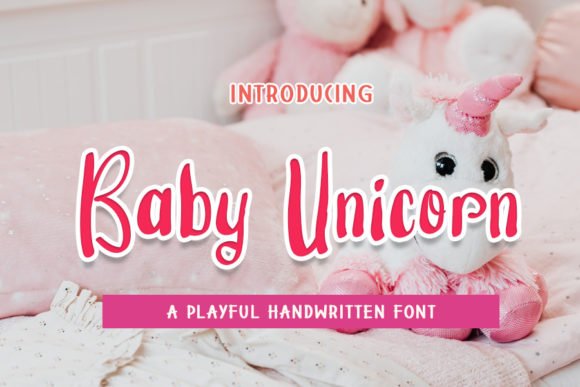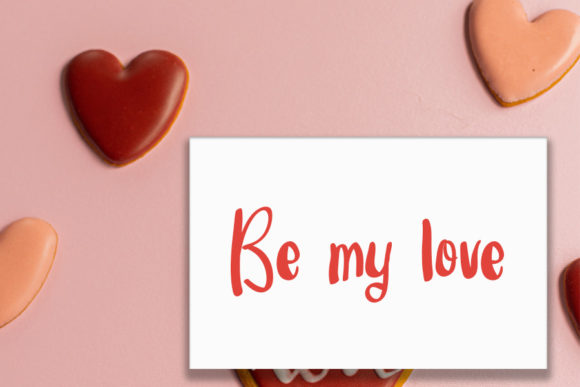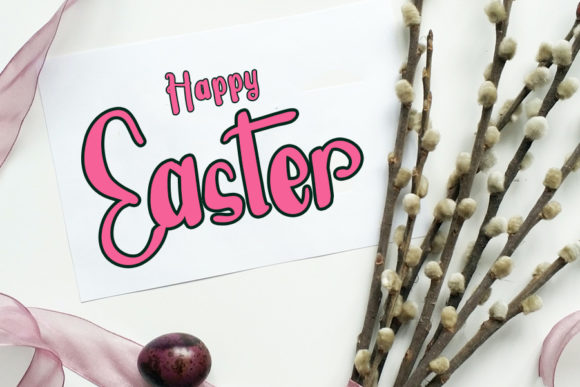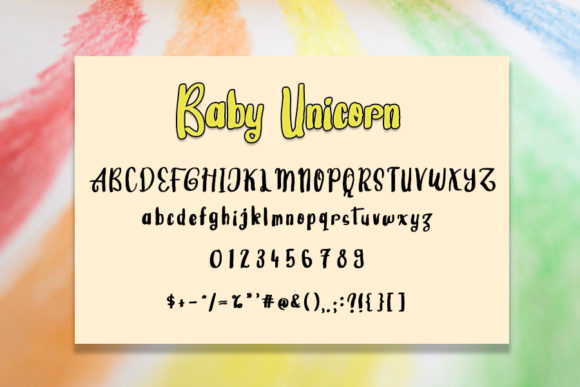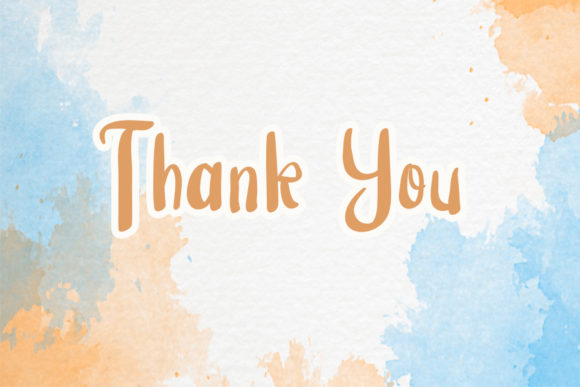
Unlocking Whimsy and Magic with the Baby Unicorn Font
Have you ever stumbled upon a font that makes you smile? Maybe it’s the way the letters seem to dance on the page, or the subtle imperfections that make it feel truly handmade. For designers, finding the perfect font can be a game-changer – it’s the key to bringing a project to life and capturing the essence of our imagination.
Enter the enchanting Baby Unicorn Font, a beautifully crafted handwritten typeface designed to add a touch of magic to your designs. With its balanced and varied strokes, Baby Unicorn Font is perfect for enhancing the beauty of your projects, from whimsical children’s books to dreamy wedding invitations.
Baby Unicorn Font Key Features
- Unique Characteristics: The Baby Unicorn Font features a whimsical, hand-drawn design with intricate details and a touch of magic, perfect for creating a playful and enchanting atmosphere in designs.
- Script and Regular Styles: The font includes both a script and regular style, allowing users to choose the perfect look for their designs, from elegant and cursive to bold and playful.
Baby Unicorn Font Review
Overall, I was excited to dive into the “Baby Unicorn Font” and see what it had to offer. Here are my thoughts:
- ✨ The whimsical and playful vibe of the font is perfect for any project that needs a touch of magic. It’s ideal for kids’ books, nursery decorations, or any design that needs a dash of fantasy.
- ✨ The font is highly customizable, allowing you to adjust the size, color, and even add special effects like glow or shadow.
- ✨ The font is well-suited for both digital and print projects, making it a versatile addition to any designer’s toolkit.
- ⚠️ The font may be too cutesy for some projects, which could make it feel immature or unprofessional.
- ⚠️ Some of the characters may not be as well-designed as others, resulting in an inconsistent look.
- ⚠️ The font may not be as legible at smaller sizes, which could be a concern for projects that require a lot of text.
Overall, I think the “Baby Unicorn Font” is a great addition to any designer’s toolkit, but it’s not without its limitations. With some careful consideration and customization, it can be a valuable asset for projects that need a touch of magic.
Tips for Getting the Most Out of Baby Unicorn Font
Use Baby Unicorn Font to add a touch of whimsy and magic to your designs. Experiment with different font sizes and colors to create a unique look. Pair it with other fonts for a playful, eclectic feel.
Baby Unicorn Font is perfect for:
- Wedding invitations and decor
- Party and event branding
- Magazine and newspaper headlines
Alternatives to Baby Unicorn Font
Great Vibes Font is a beautiful, elegant script font that is perfect for creating whimsical and magical designs. It has a similar flowing and cursive feel to Baby Unicorn Font, but with a more sophisticated and refined look. Great Vibes Font is ideal for use in wedding invitations, children’s books, and other designs that require a touch of elegance.
Pacifico Font is a modern and stylish script font that is reminiscent of beachy and tropical vibes. It has a more relaxed and casual feel compared to Baby Unicorn Font, making it perfect for use in designs that require a laid-back and effortless look. Pacifico Font is ideal for use in beach-themed designs, travel brochures, and other designs that require a sense of relaxation.